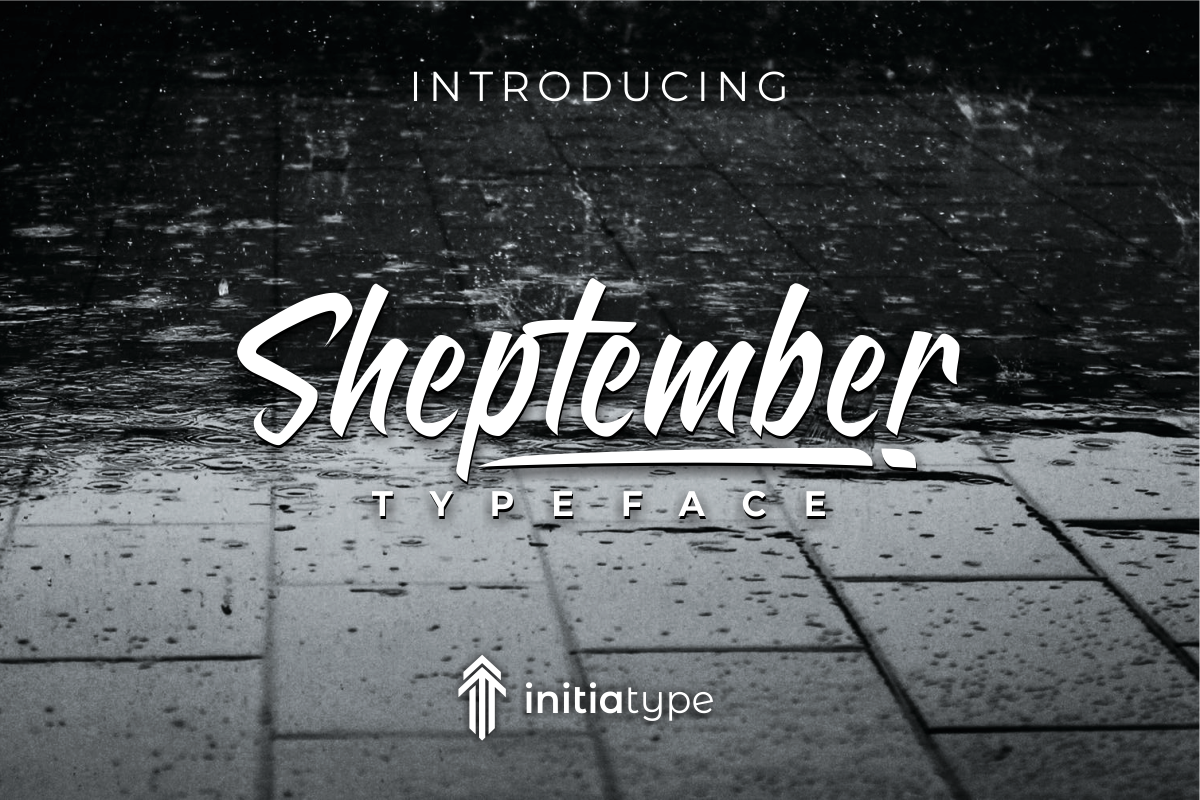
Sheptember
Sheptember Typeface
The Sheptember Font is the great choice for watermark on photography, signature or signature logo design, quotes, album cover, business card, and many other design project. From business cards to photo watermarks, The Sheptember is here to elevate your work to the highest level